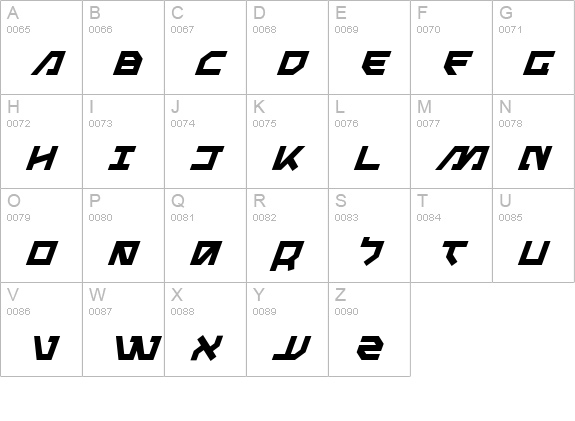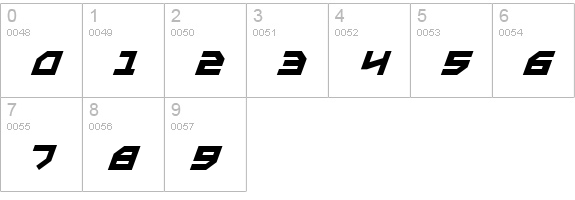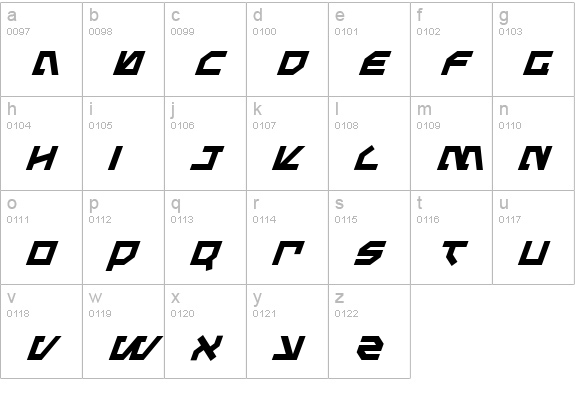
Metal Storm Italic is a distinctive, italic variant in the Metal typeface family \xE2\x80\x94 well suited to design and typography projects.
Metal Storm Italic font is a bold and dynamic typeface that exudes power and strength. Its sharp angles and sleek curves give it a modern and edgy look, perfect for making a statement in any design project. The italic style adds a touch of elegance and sophistication, making it versatile for both bold headlines and stylish branding. This font is not only visually striking but also highly legible, ensuring that your message comes across loud and clear. Whether you're designing a poster, logo, or website, Metal Storm Italic font will help your text stand out and leave a lasting impression. Best of all, Metal Storm Italic font is available for free download at FontsMarket.com. So why wait? Give your designs a bold and powerful edge with Metal Storm Italic font today.